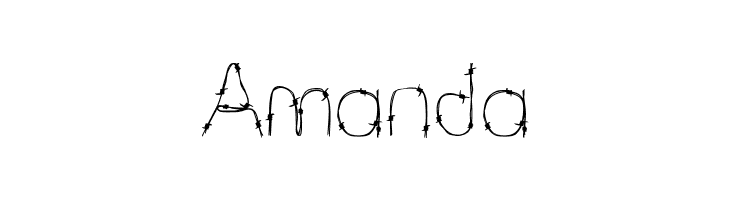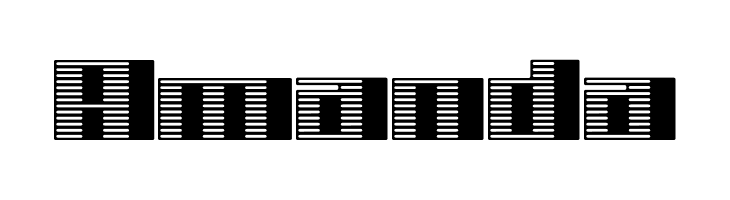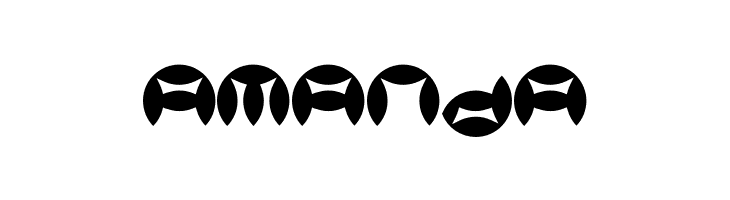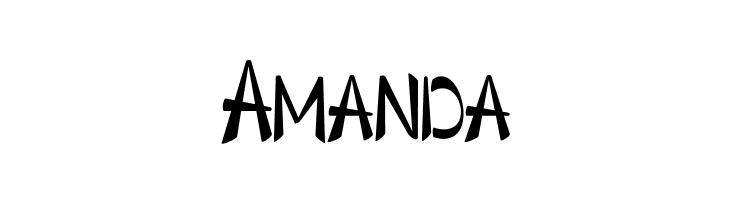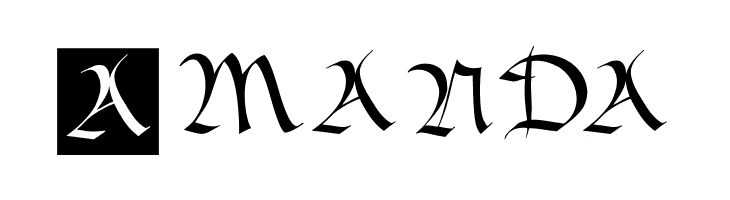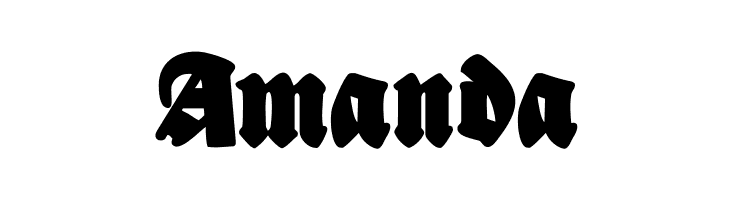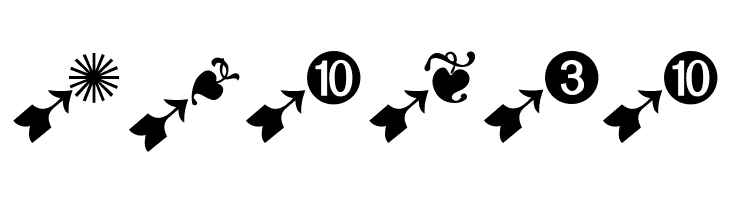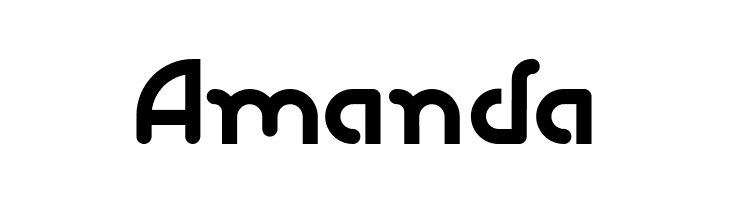
• awe
• Baby Bowser
A playful, handwritten font with dynamic strokes and a whimsical style.
• Back2School
Cartoon school-themed illustrative font with characters made from playful scenes.
• Backslash
A futuristic, angular font with a sleek and modern design.
• Bajareczka
A whimsical and decorative font with intricate swirls and flourishes.
• Bajareczka Shadow
A bold, decorative font with a shadow effect and intricate flourishes.
• Baldur
A bold, decorative font with a playful yet structured design.
• BalletSketches
Sketch-style font featuring ballet dancer illustrations as characters.
• BalloonDigits
A playful font with numbers styled as inflated balloons, perfect for festive designs.
• Bamum Symbols 1
• Bamum Symbols 1 Bamum Symbols 1
• Bang Bang
• Barbaric 2B Reg
A decorative font styled like barbed wire, offering a rugged and edgy appearance.
• Barin Regular
A bold, decorative font with a unique striped pattern for a modern, impactful look.
• basis33
A pixelated, monospaced font with a retro digital aesthetic.
• BastardaMajuskel1300
A Gothic-style font with sharp, angular lines and ornate detailing.
• BatzBatz
A decorative font with playful symbols and bold arrows.
• BauhausReminisce
A bold, geometric, and abstract font with a modern artistic flair.
• Bayreuther-BlaXXL
A bold, dramatic blackletter font with intricate, ornate letterforms.